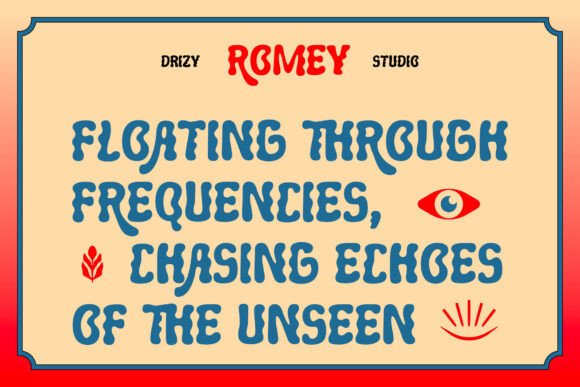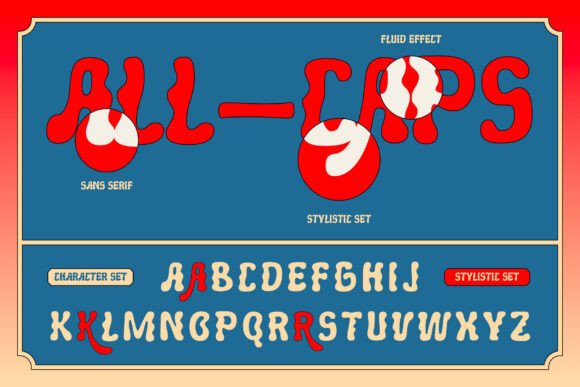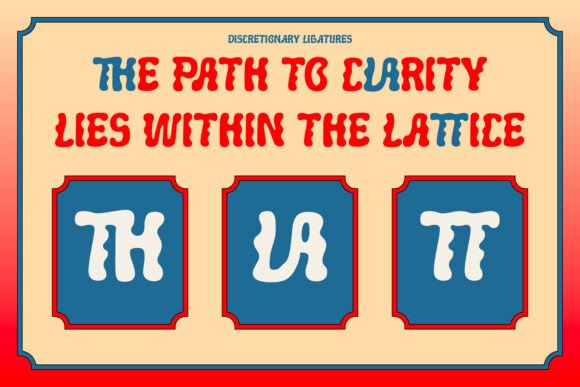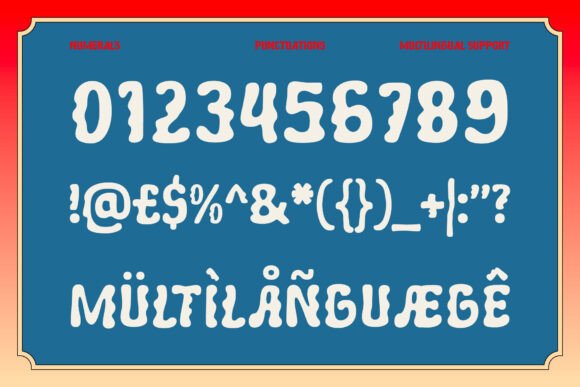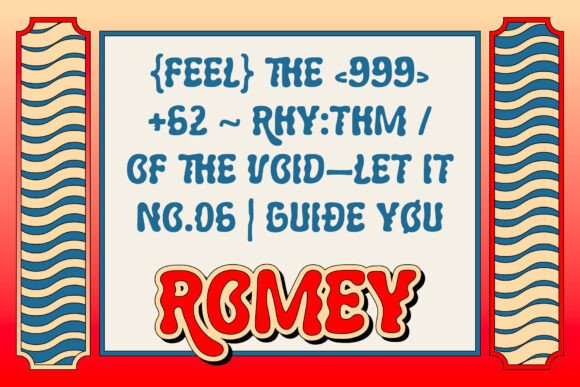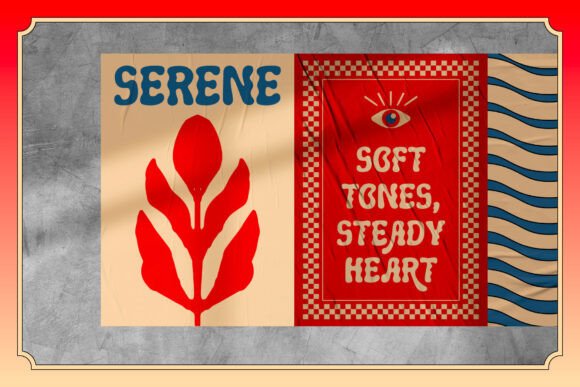
Introduction to Romey Font
Have you ever stumbled upon a font that just makes you want to create? Maybe it’s the way the letters seem to dance across the page, or the way the curves and lines flow together in perfect harmony. For designers, finding that perfect font can be a game-changer. It’s the difference between a design that feels forced and one that feels effortless. And that’s exactly what the Romey Font is all about – effortless energy and a dash of retro charm.
As a proud member of the Fluid Dynamics font family, Romey Font channels a unique spirit that’s both vintage and modern at the same time. With its smooth transitions, organic curves, and playful personality, it’s no wonder why designers are falling in love with this high-quality font.
About the Romey Font
- High-quality design resource for creative projects, ideal for graphic designers and artists.
- Unique characteristics include elegant and modern typography, making it perfect for branding, logos, and typography-based designs.
Honest Review: Romey Font
I recently stumbled upon the Romey Font, a versatile design resource that’s perfect for creative projects. After giving it a try, I’m excited to share my honest review.
What works well: ✨ The Romey Font has a unique, modern feel that’s perfect for a variety of designs, from logos to typography. The font is highly legible, even at smaller sizes, making it a great choice for projects where readability is crucial. Additionally, the transparent background makes it easy to layer with other design elements.
What could be improved: ⚠️ One limitation I noticed is that the font is only available in a few weights, which might limit its versatility for some projects. Additionally, the font doesn’t include many language support options, which might be a concern for designers working on international projects.
- High-quality design that’s perfect for logos, typography, and more
- Only available in a few weights
- Limited language support options
Romey Font
Romey Font is a high-quality design resource that offers a unique and creative font style perfect for various projects. With a transparent background, this font is ideal for adding a touch of elegance to your designs.
Romey Font is ideal for creative projects such as:
- Personal branding and logos